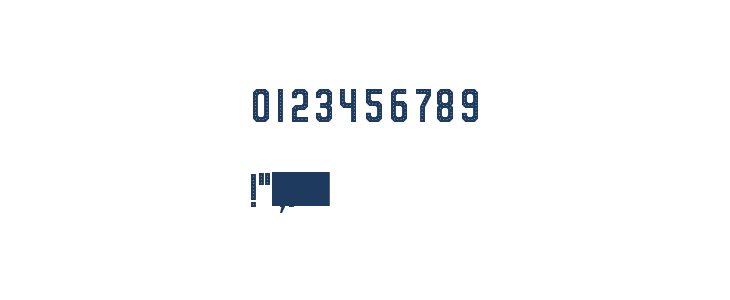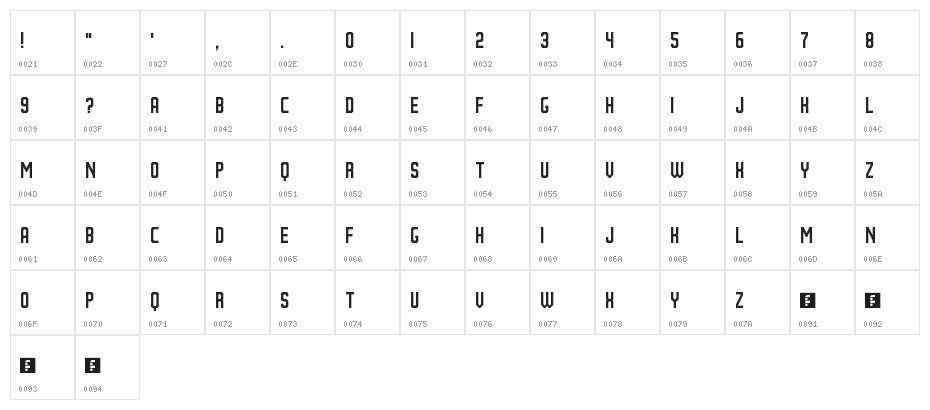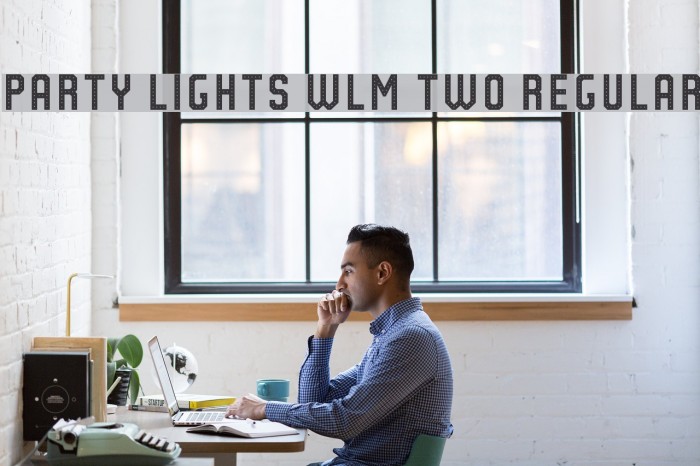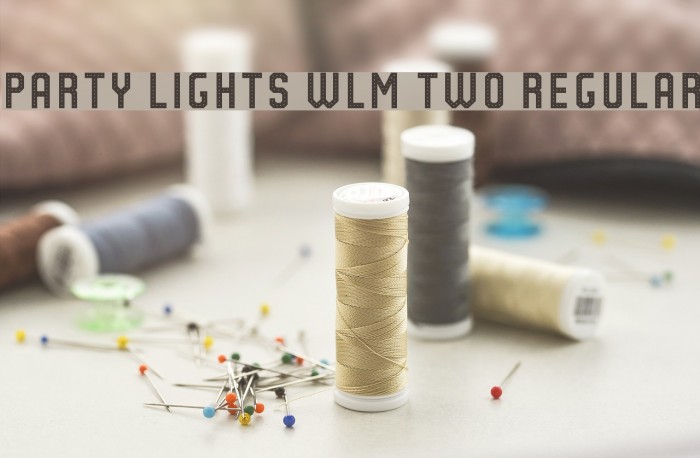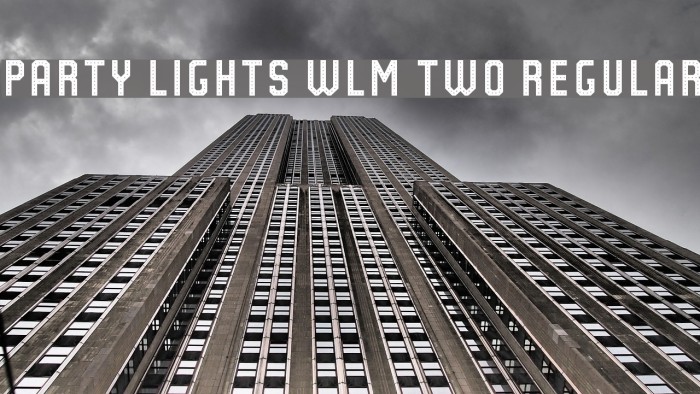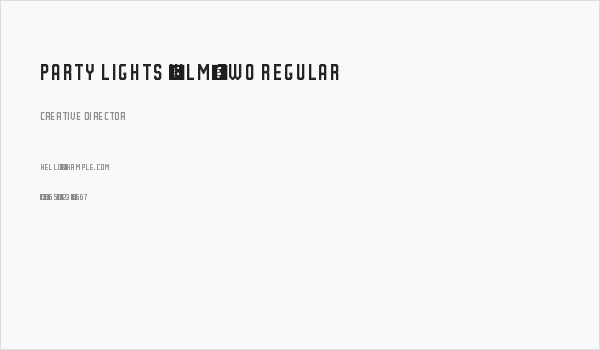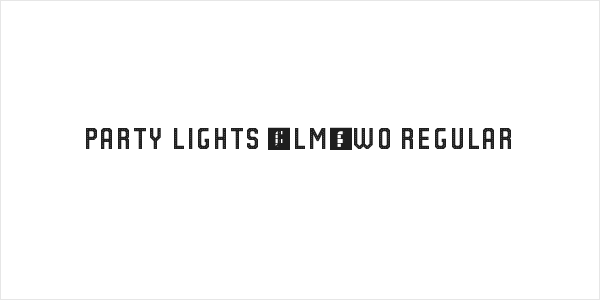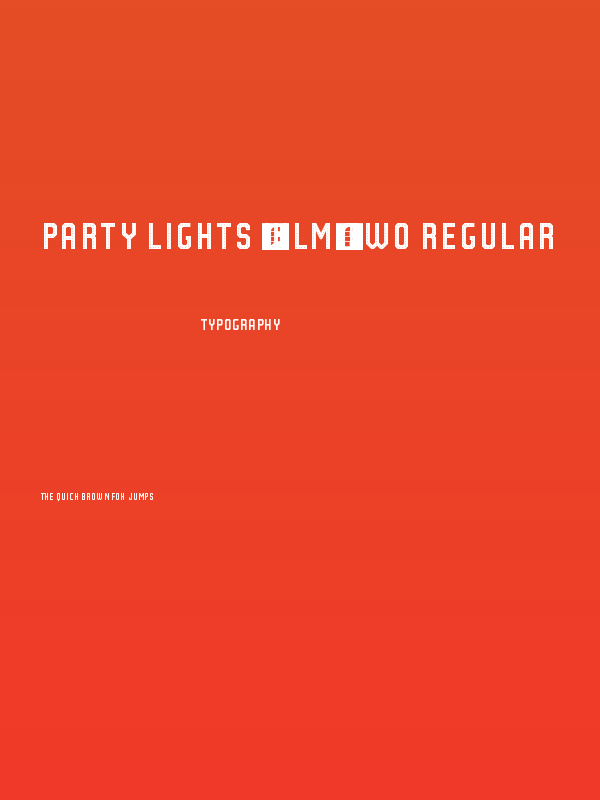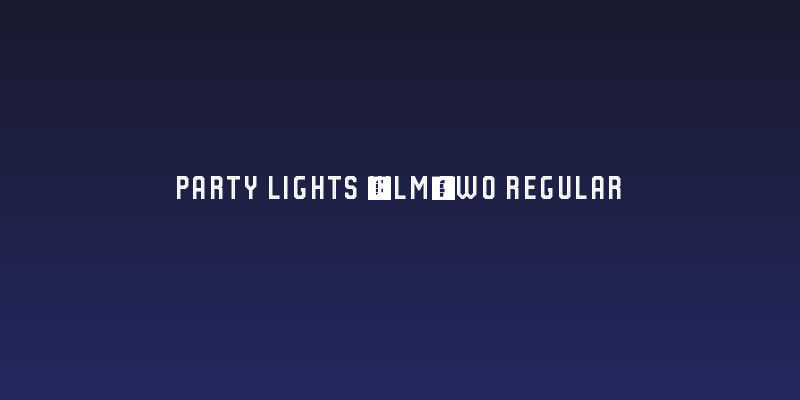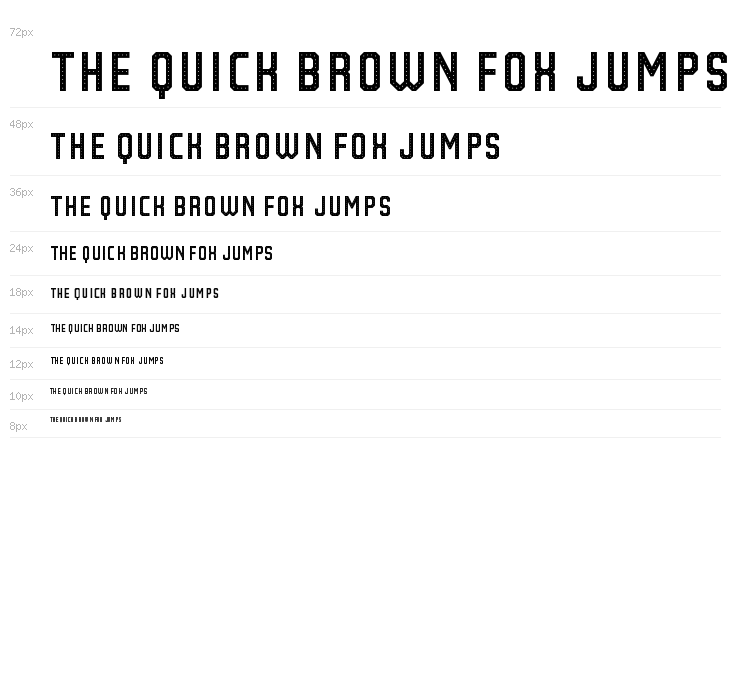
Party Lights [WLM] Two Regular Font
Party Lights [WLM] Two Regular Description
This font features a playful and decorative style, characterized by its dotted pattern that mimics the appearance of marquee lights. Each character is outlined with a series of evenly spaced dots, creating a lively and festive look. The uppercase and lowercase letters maintain a consistent height and width, contributing to a uniform appearance. The numbers and special characters follow the same design, ensuring a cohesive look across all elements. This font is ideal for projects that require a fun and eye-catching typeface, such as party invitations, event posters, or any design that aims to capture a celebratory atmosphere.